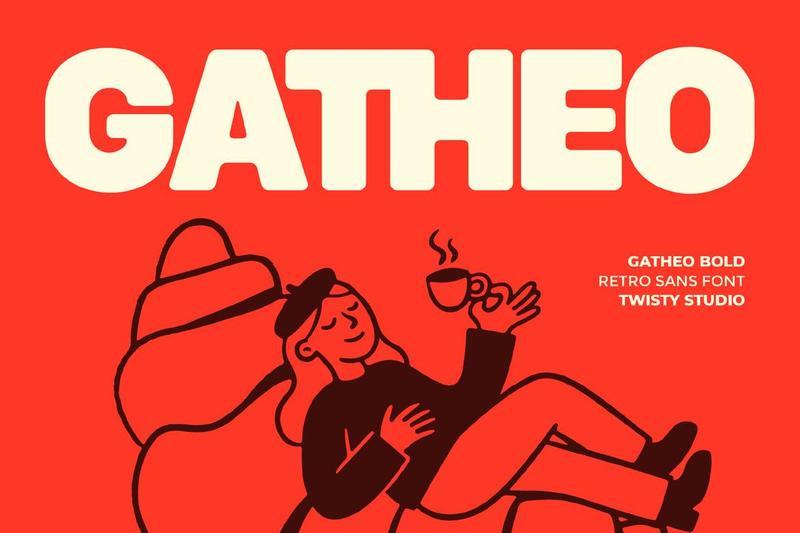
**Bold Retro Sans Font – Gatheo**
Gatheo is a bold retro sans font that brings vintage character to life with a modern, confident twist. Inspired by classic design eras, Gatheo features thick strokes, smooth curves, and a strong structure that creates a warm, nostalgic feel while remaining fresh and relevant. Its bold form makes it perfect for attention-grabbing typography, delivering a playful yet solid presence in every composition. The retro influence adds personality and charm, while the clean sans foundation keeps it versatile and easy to use across various design styles.
Uppercase & Lowercase
Alternates & Ligatures
Numerals & Punctuation
Multilingual Support
**Who Should Use Gatheo?**
Gatheo is ideal for designers, creatives, and brands looking for a bold retro-inspired typeface with a modern edge. Its especially suited for projects that require expressive, nostalgic, and eye-catching typography.
**Suitable For:**
Retro and vintage branding
Bold logo design
Posters and creative headlines
Packaging and product design
Social media graphics
Advertising and promotions
Editorial and layout design
Fun and expressive typography